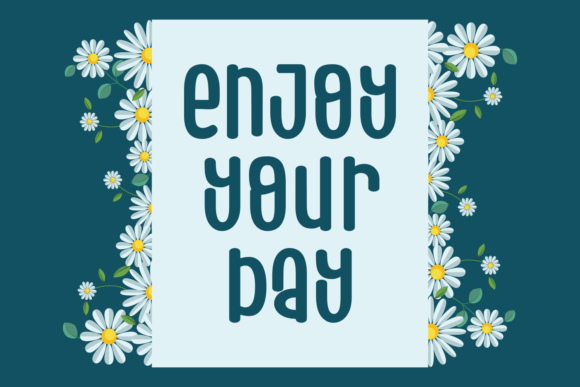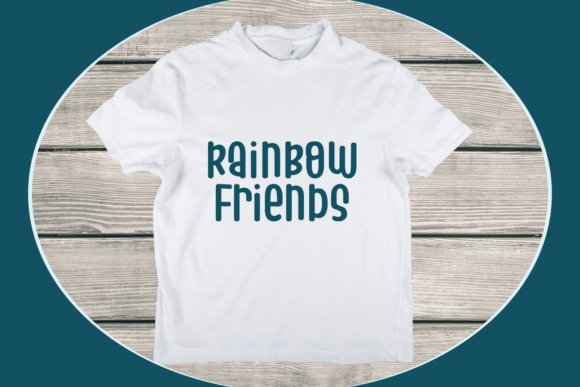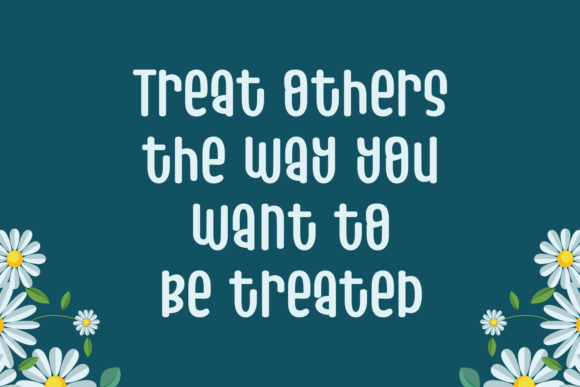
Introduction to Clush Daisy Font
Clush Daisy is a friendly handwritten typeface.
With its casual, hand-drawn style, Brouny Macker has a friendly and approachable vibe It’s perfect for projects meant to convey warmth, sincerity, and a handcrafted aesthetic.
Key Features of Clush Daisy Font